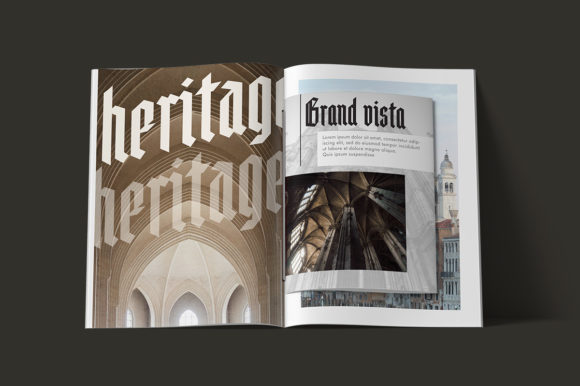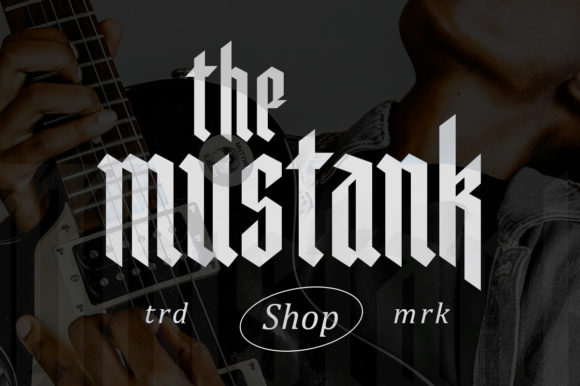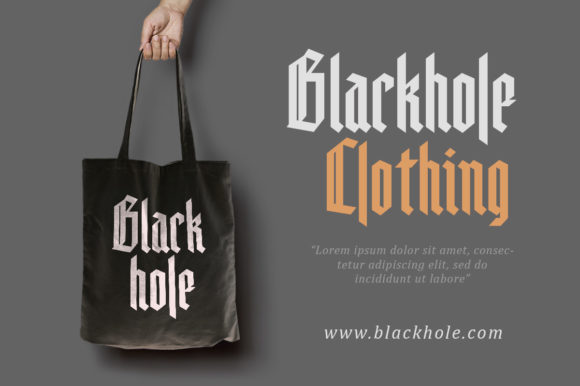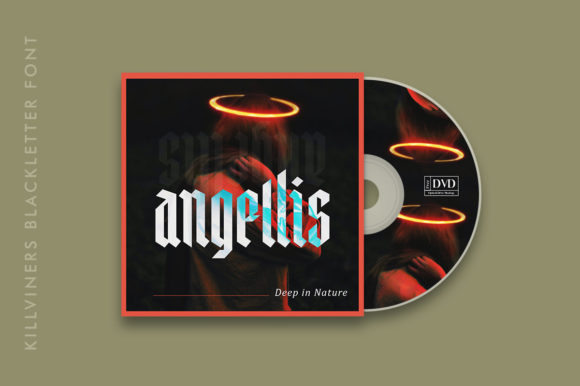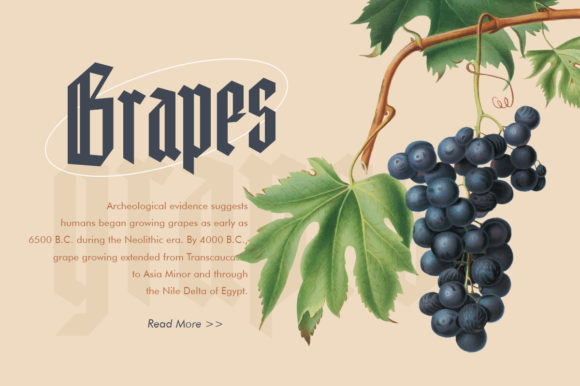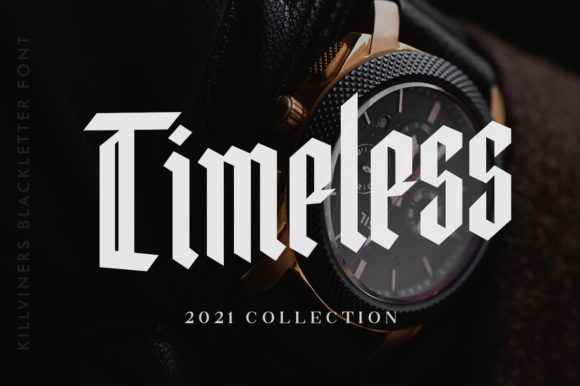
Introduction to Killviners Font
Killviners is a modern blackletter font featuring a gothic vibe and a stylish flair.
It is suitable for any creation that needs a bold accent, and it can transform any idea into a true piece of art .